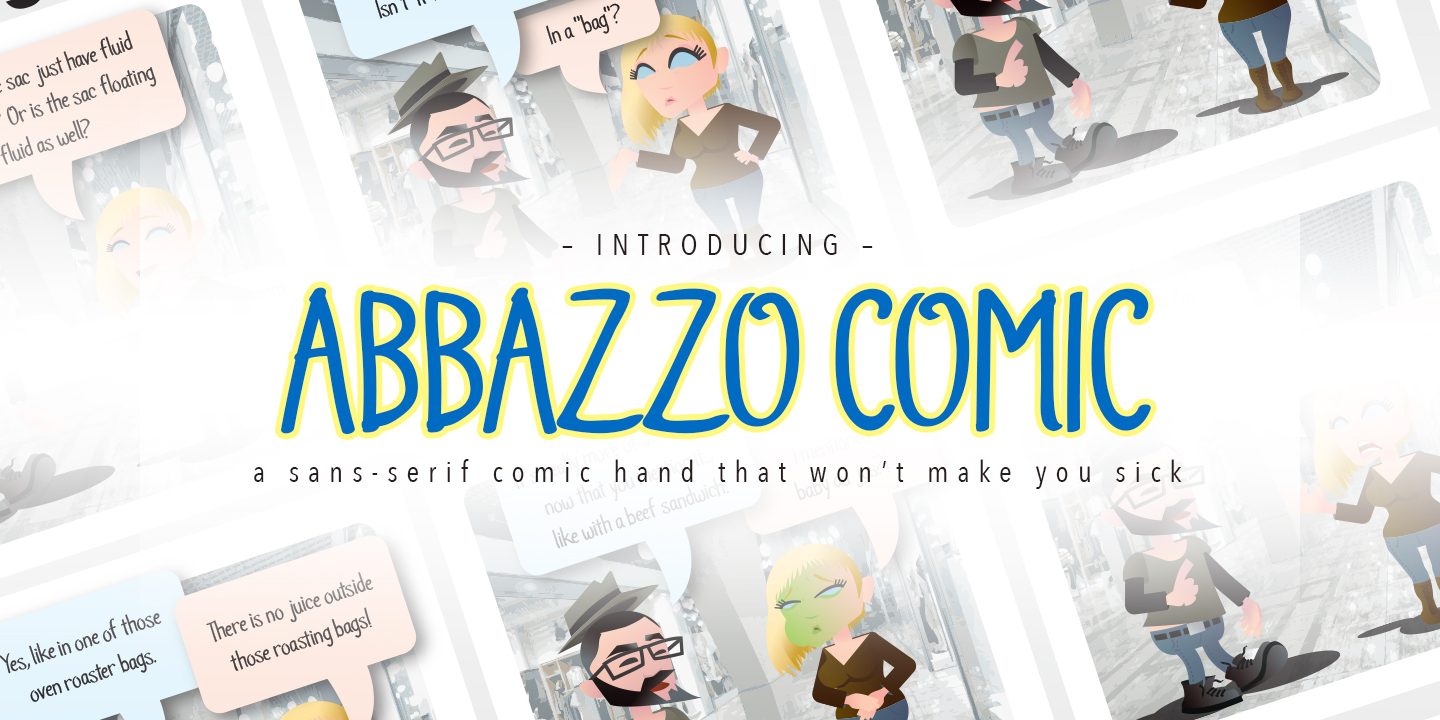
Abbazzo Comic is a comic and hand drawn font published by La Lettre de Luxe.
Fonts with “Comic” in their names-not to name names-get a bad rap. It’s time for a new believable handwriting typeface that reads well at small sizes and in big copy blocks; has a little more style; and includes multiple language support.